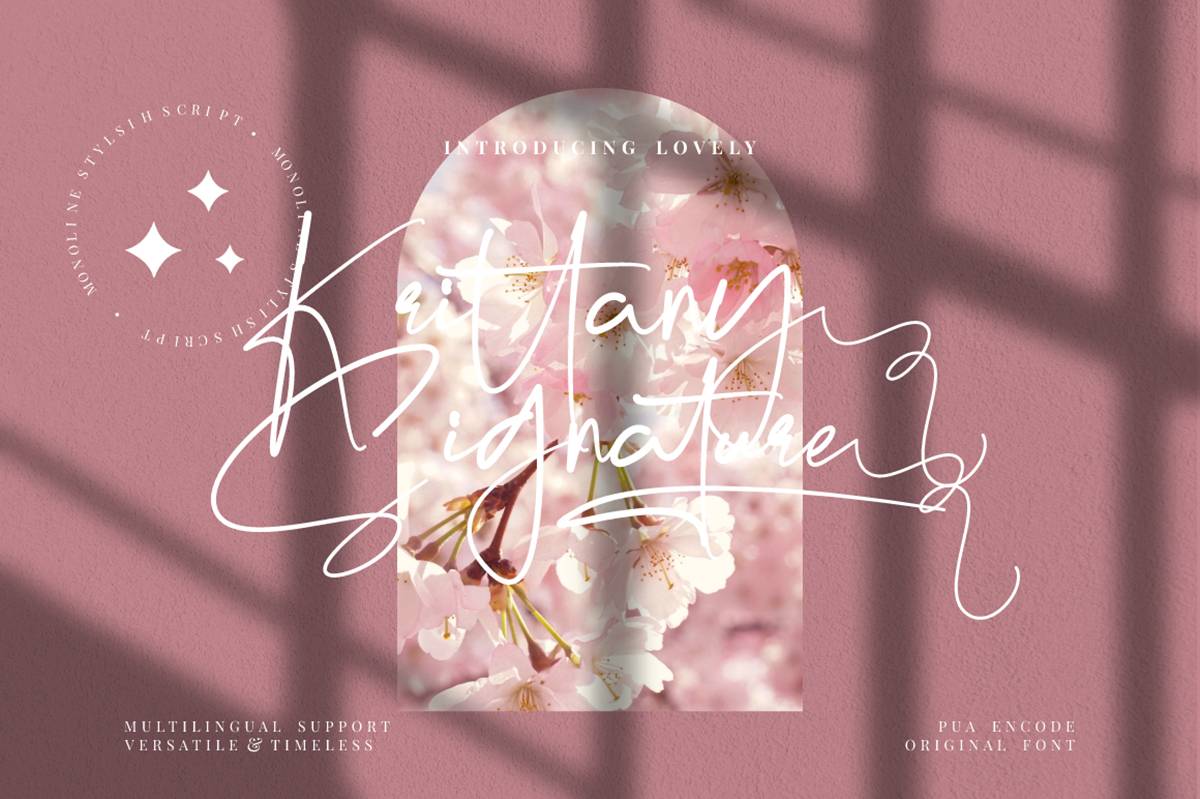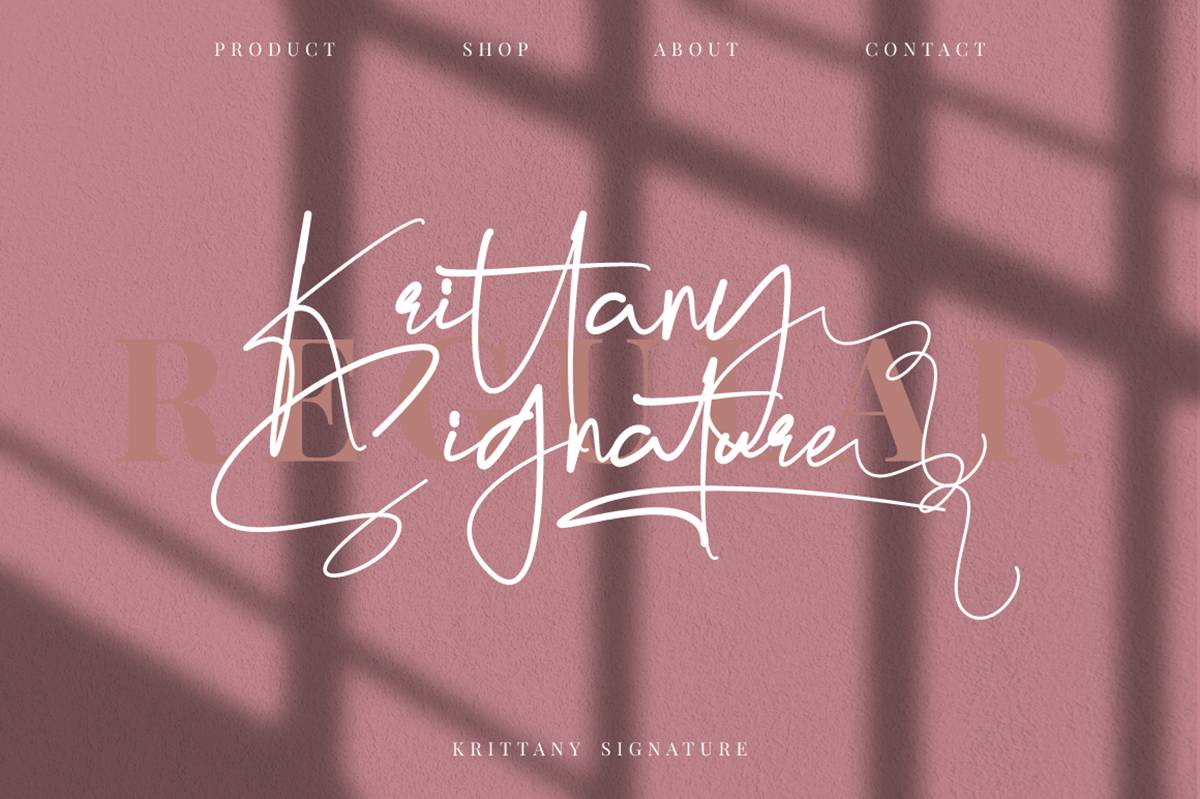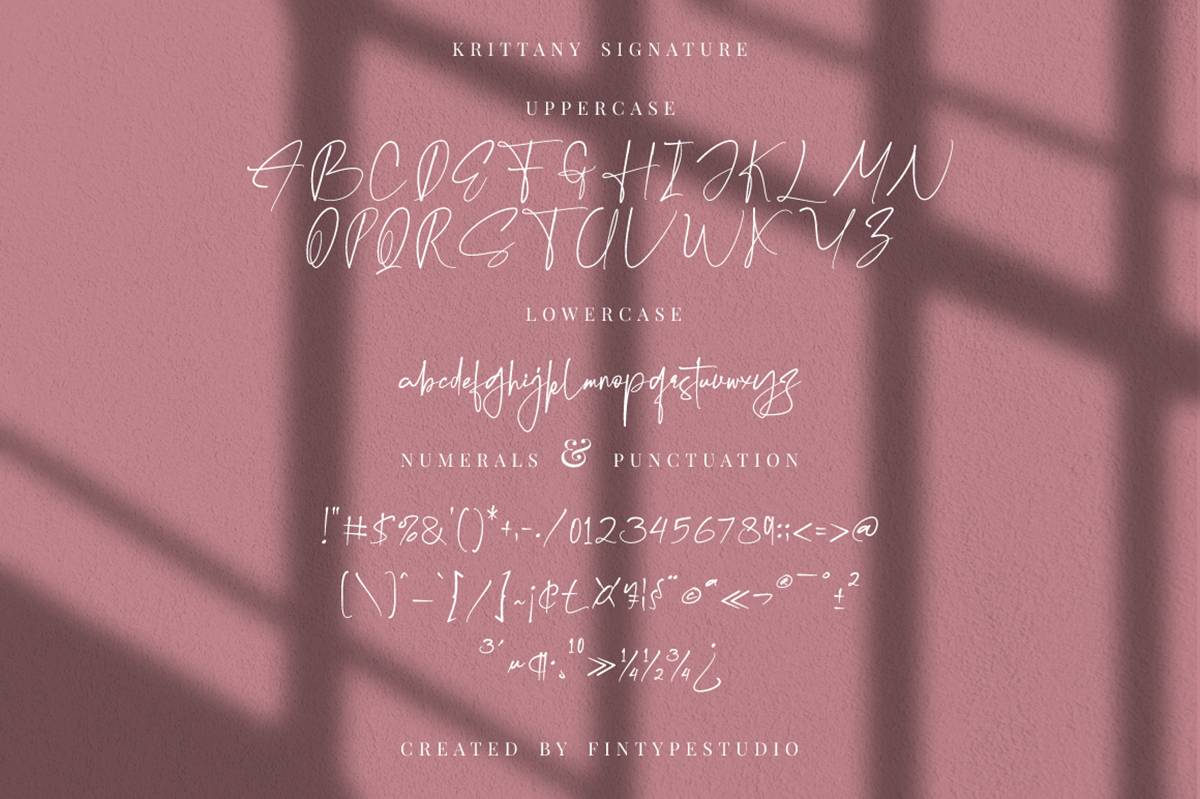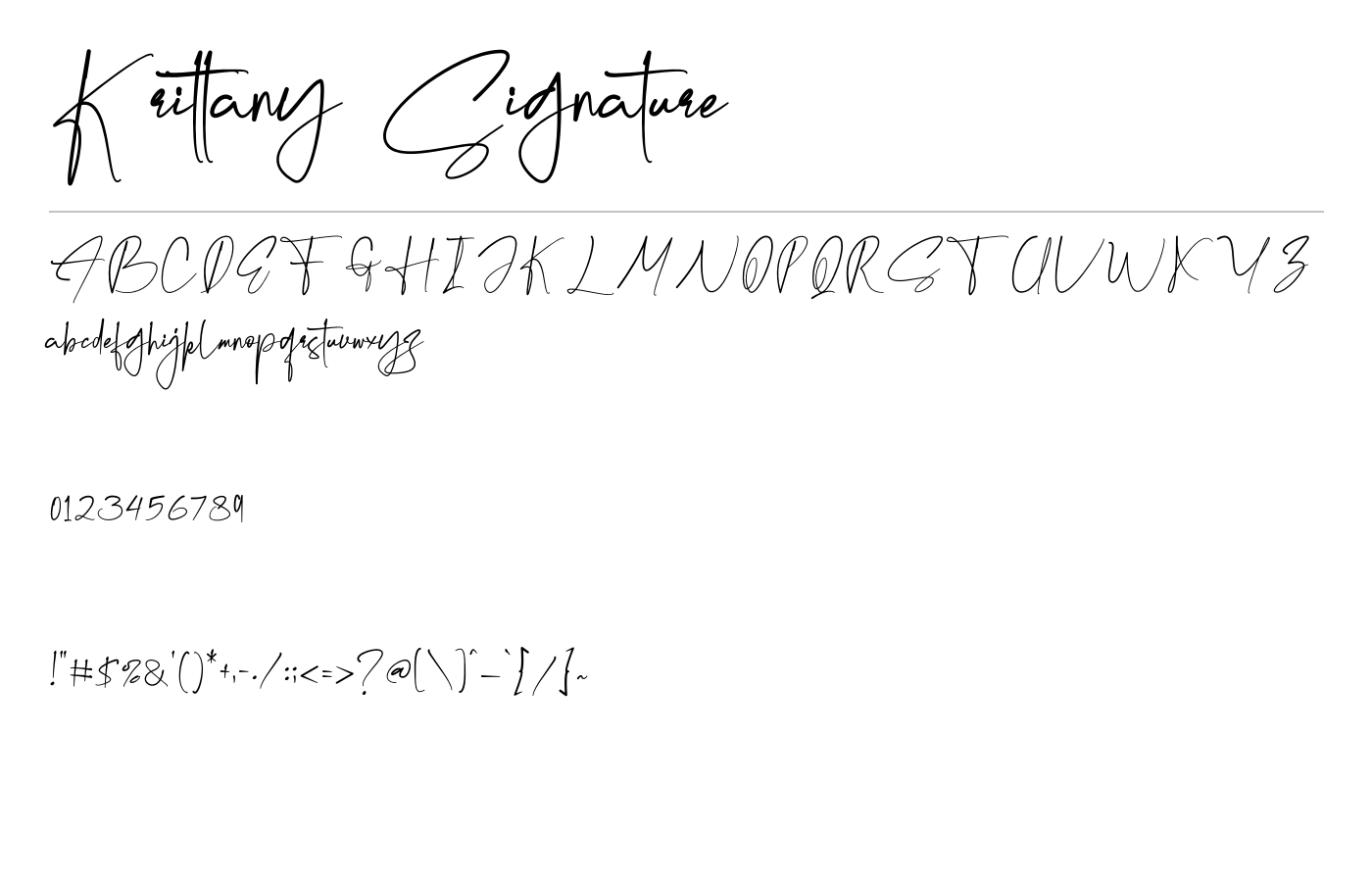
Krittany Signature Font is a delicate and elegant handwritten script that mimics a personal, flowing signature with its thin, graceful strokes and slightly irregular letterforms. Its light weight and airy style make it perfect for adding a touch of sophistication and individuality to branding, invitations, and stylish editorial projects. This font works beautifully in contexts where a refined, modern, and intimate feel is desired.
Krittany Signature Font
About Krittany Signature Font
| Font family | Krittany Signature Font |
| Designer | FinTypeStudio |